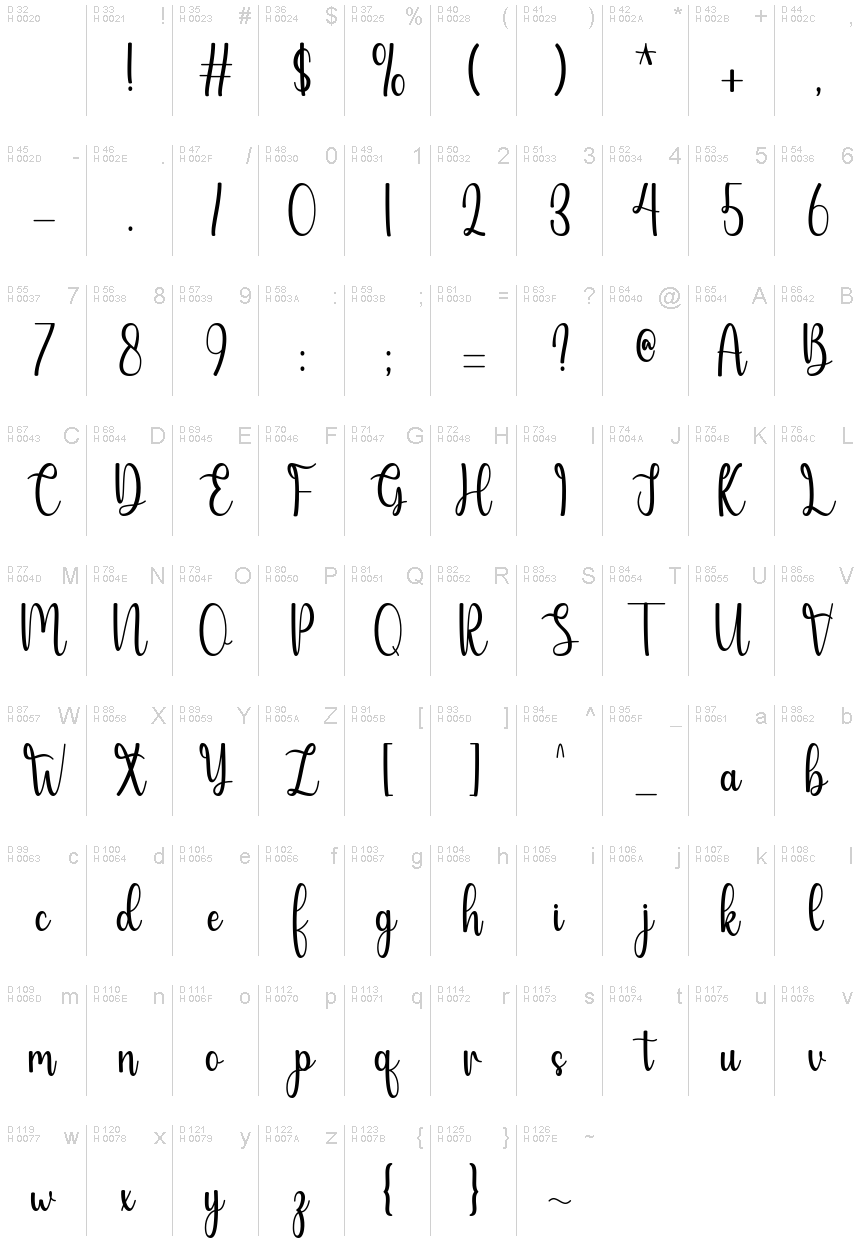
Without
Without, a creation by Hardiboy Design, brings the intimate charm of handwritten correspondence to the digital realm. Its fluid strokes and organic curves evoke the warmth and personal touch of ink on paper, standing out with an easy grace that infuses designs with genuine character. The font's casual elegance suggests a laid-back sophistication, making it a delightful choice for branding, invitations, and any project needing a touch of human sincerity.
Ideal for settings where personality is key—think boutique signage or editorial headers—Without adds an effortless flair that entices the eye while maintaining excellent readability. It's this blend of visual appeal and functional clarity that makes Without not just a font but an ambassador of personal expression in design.